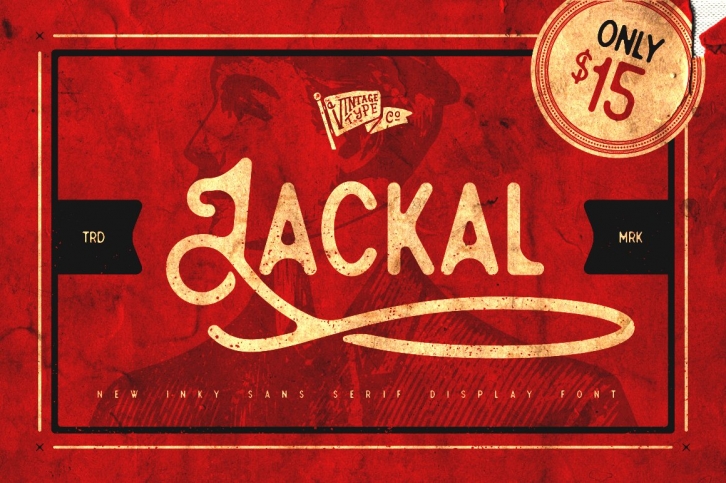
Jackal display font is a hand made post-modern sans serif with a “scripty†uppercase. All of the corners on Jackal have been rounded to extremes to give the illusion of an inked impression, making this font perfect for anyone seeking that vintage, hand-drawn aesthetic. This font is perfect for logos, posters, badges, book covers, crafts, packaging, and so much more!
Jackal display font comes included with a full upper & lower case, numerals, punctuation, and two variant font styles (regular & inked). It also comes equipped with multilingual support for the following languages: